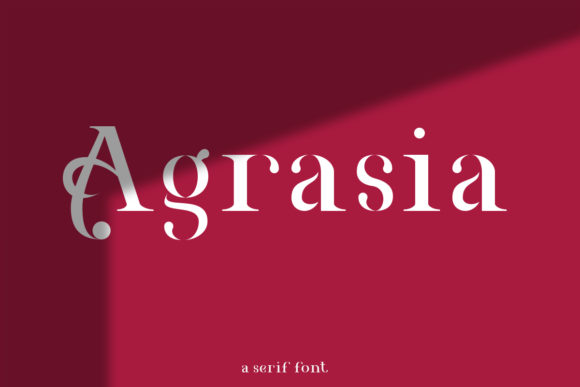
Introducing Agrasia Font: A timeless serif font that will bring a touch of graceful elegance to your design projects.
Meet Agrasia Font, a vision of beauty and refinement, where the past and present harmoniously coexist. This captivating serif font, a creation of youthlabs, masterfully marries the timeless charm of tradition with a refreshingly modern twist.
With its distinctive letterforms and intricate details, Agrasia exudes an air of sophistication that will elevate your designs to new heights. Its smooth curves and sharp contrasts create a visual symphony that dances across the page.
Whether you're a seasoned designer or just starting out, Agrasia Font is your perfect creative companion. Its versatility knows no bounds, adapting effortlessly to a wide range of projects, from sleek logos and branding to eye-catching packaging designs.
Unleash your creativity and let Agrasia's elegant strokes weave their magic into your designs. Create logos that exude timeless appeal, branding that oozes sophistication, and packaging that captivates the heart.
Agrasia Font is not just a font; it's an experience. Immerse yourself in its beauty and let it transport you to a realm of creativity and inspiration.